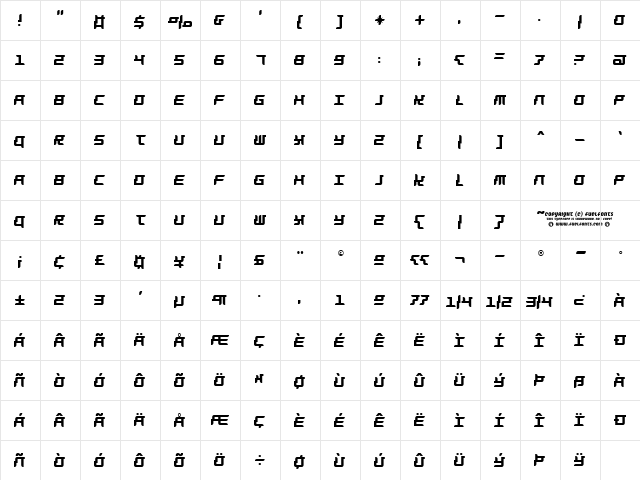
Barbarella Regular Font Preview
Barbarella Regular
Barbarella Regular Font Details
Design Context for Barbarella Typeface
Barbarella is a composed and adaptable typeface that performs quietly and consistently across a wide range of design contexts.